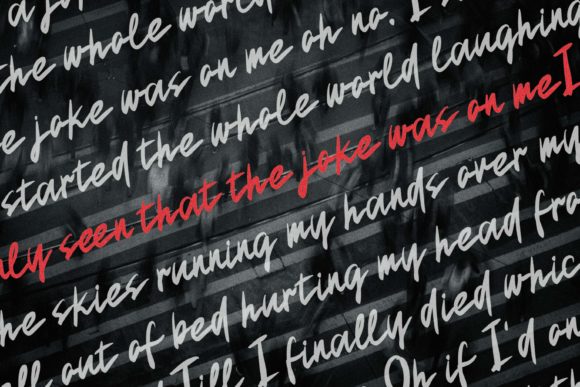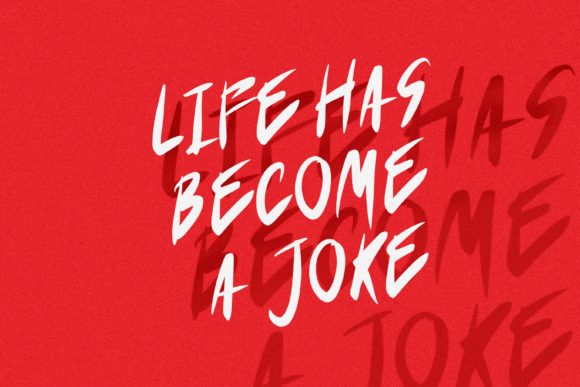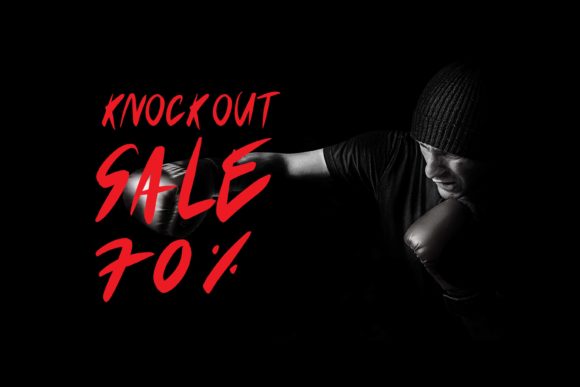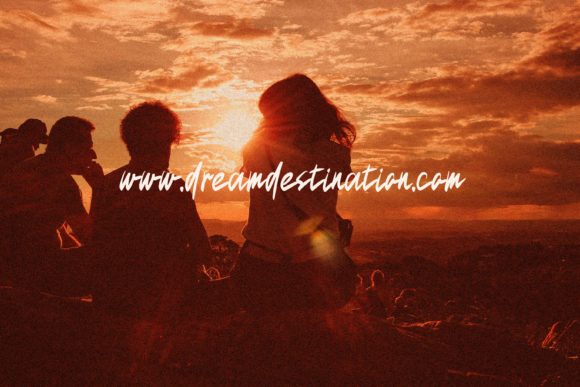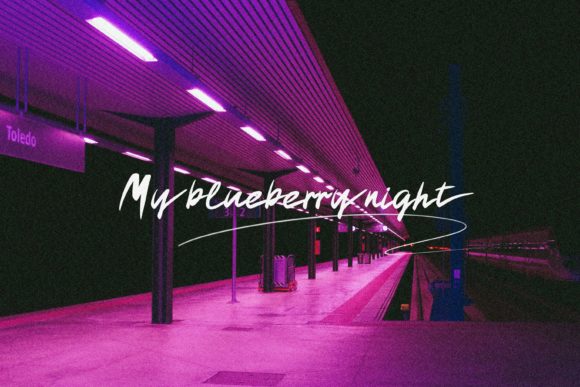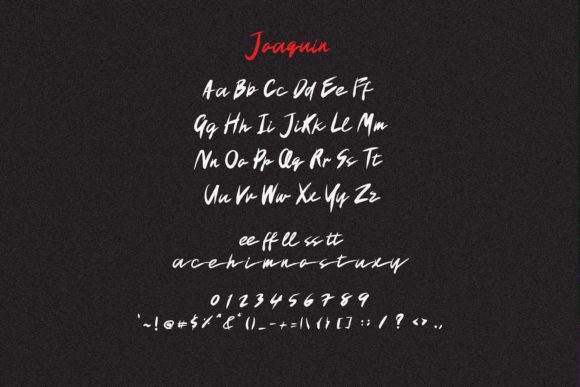
Joaquin Font
About Joaquin Font
Joaquin is a dynamic and modern handwritten font that adds a touch of playfulness and creativity to your designs. With its unique style and versatile appearance, it’s the perfect choice for bringing your ideas to life and creating visually stunning designs.
The fun and contemporary nature of Joaquin makes it a fantastic font for a wide range of projects. Whether you’re designing logos, branding materials, social media graphics, posters, or even personal projects like invitations or greeting cards, Joaquin will add a sense of energy and excitement.
One of the standout features of Joaquin is its PUA encoding, which allows you to access a wide variety of glyphs and swashes with ease. This means you have the freedom to customize and embellish your designs with unique and decorative elements, making each project truly unique and eye-catching.
The modern and handwritten style of Joaquin creates a sense of authenticity and personality. The fluid and organic letterforms give the font a natural and spontaneous look, as if they were written by hand. This adds a personal and human touch to your designs, making them more relatable and engaging to your audience.
The versatility of Joaquin allows it to adapt to various design contexts. Whether you’re aiming for a casual and laid-back look or a more vibrant and energetic style, Joaquin can deliver. Its legible and well-crafted letterforms ensure that your message is conveyed clearly while maintaining a modern and artistic aesthetic.
Joaquin is also great for adding emphasis and visual interest to specific elements within your designs. With its collection of swashes and alternate glyphs, you can easily create eye-catching headlines, titles, or decorative elements that grab attention and make a lasting impression.
In summary, Joaquin is a fun and modern handwritten font that empowers you to create spectacular designs. Its PUA encoding provides you with access to a wide range of glyphs and swashes, giving you the freedom to customize and embellish your projects. Whether you’re designing logos, branding materials, or social media graphics, Joaquin adds a playful and dynamic touch that captivates your audience. Embrace the versatility and creativity of Joaquin to bring your ideas to life and make a bold statement in your designs.